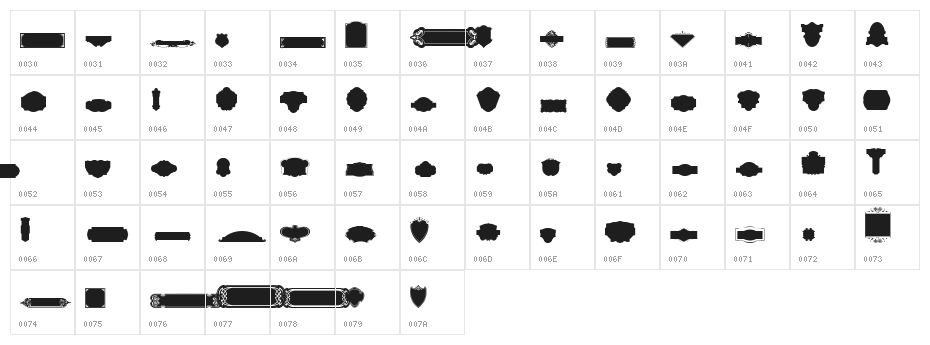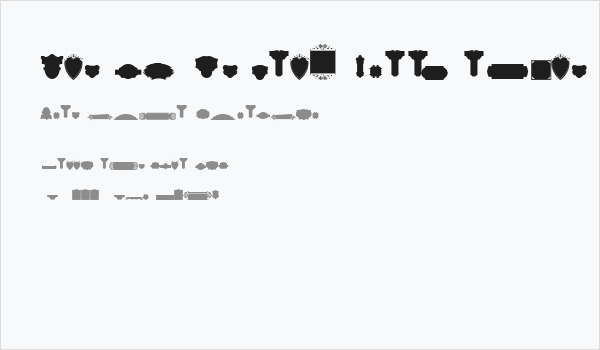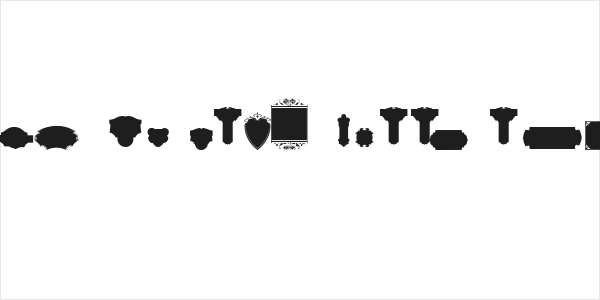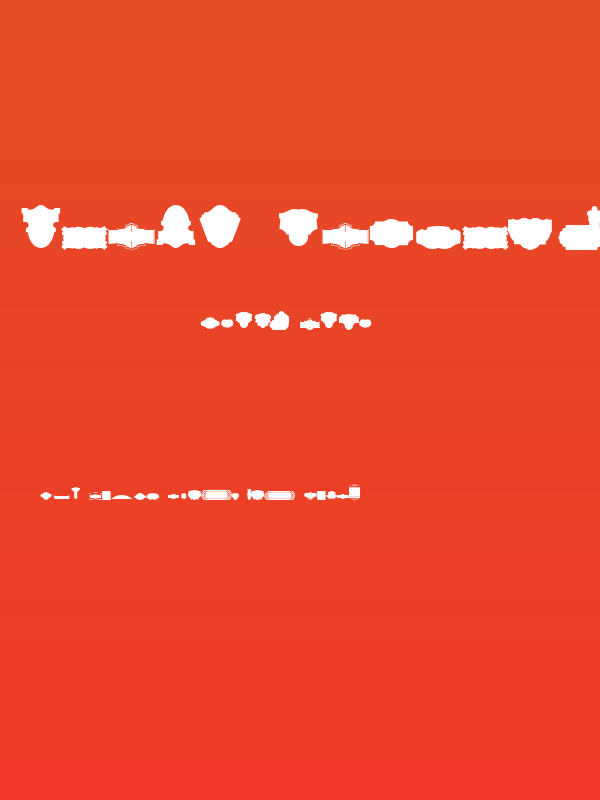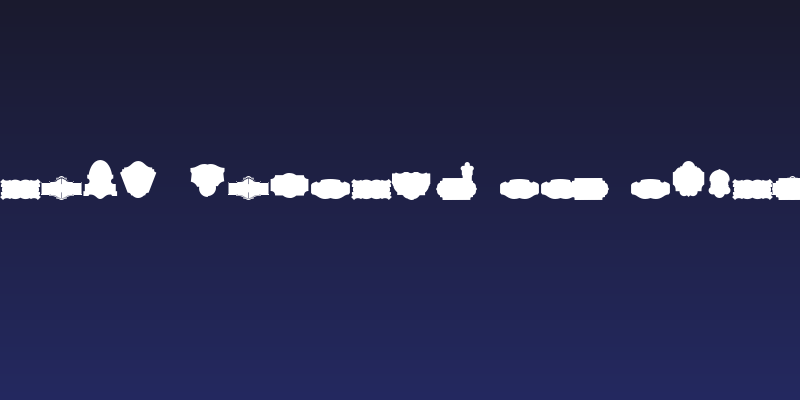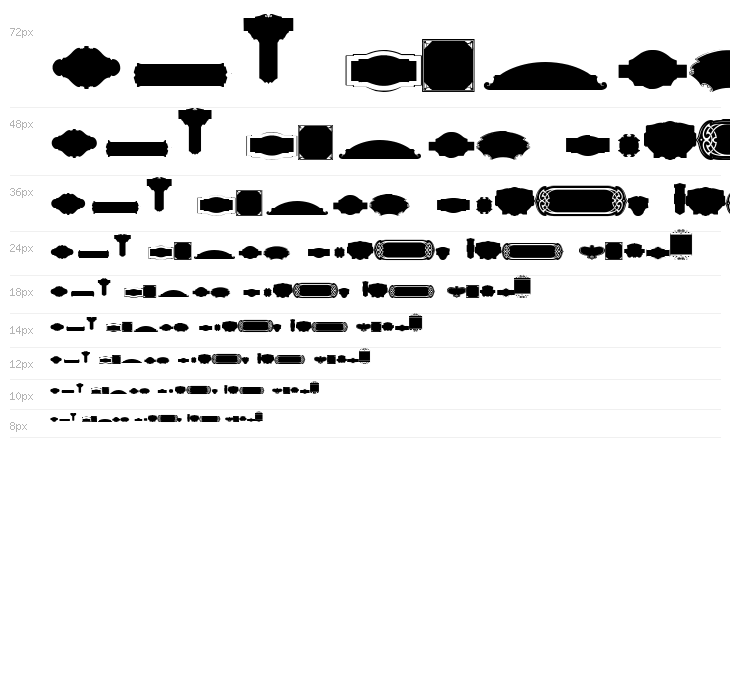
Black Panels Free Regular Font
Black Panels Free Regular Description
A collection of ornate, decorative black panel silhouettes with various shapes and intricate borders, resembling vintage signage or label frames. Each glyph is a unique panel design rather than a traditional alphanumeric character.
Overall StyleDecorative, Vintage
Use CaseLabels, Frames, Decorative Elements
Proposed ProjectsVintage labels, packaging design, invitations, certificates, signage, scrapbooking, and decorative borders.